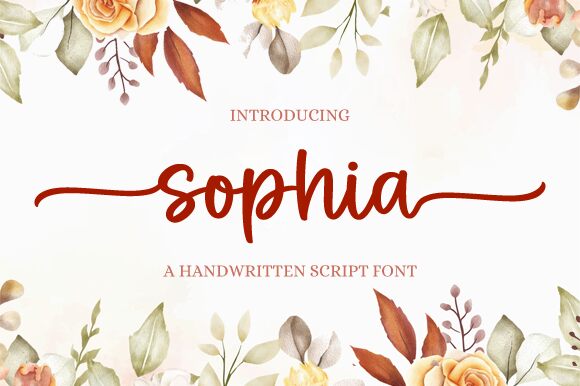
Sophia
Sophia by Graphix Line Studio is a semi-light handwritten font that exudes charm and personality. Crafted to capture the spontaneity and fluid strokes of hand lettering, Sophia strikes a balance between casual elegance and playful whimsy. Its semi-light weight lends a delicate touch, making it perfect for designs that require a personal, artisanal feel without being overly heavy.
With its distinctive character curves and natural flow, Sophia is an ideal choice for branding projects, invitations, and editorial designs where a touch of human touch is desired. The font's aesthetic appeal lies in its ability to convey warmth and approachability while maintaining legibility and style.
Whether you're looking to add a handcrafted dimension to your creative work or seeking to infuse your project with a sense of authenticity, Sophia brings versatility and visual interest that will help your design stand out.